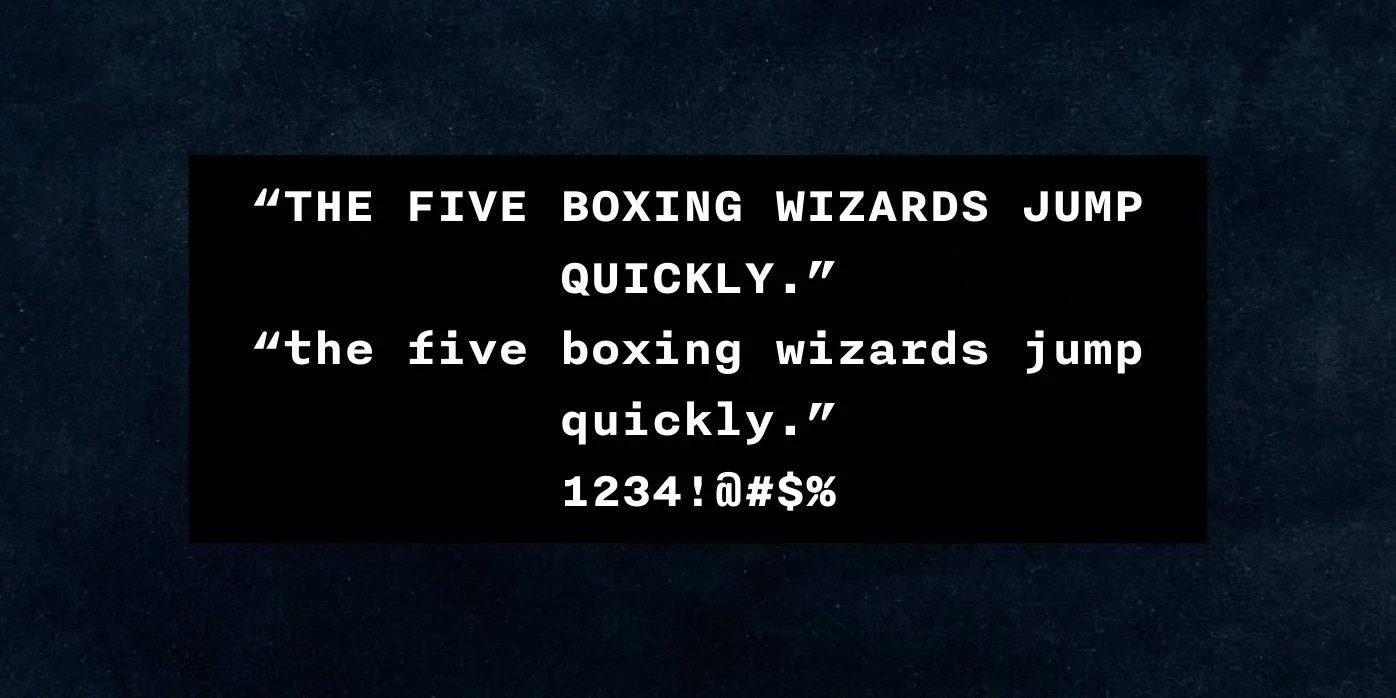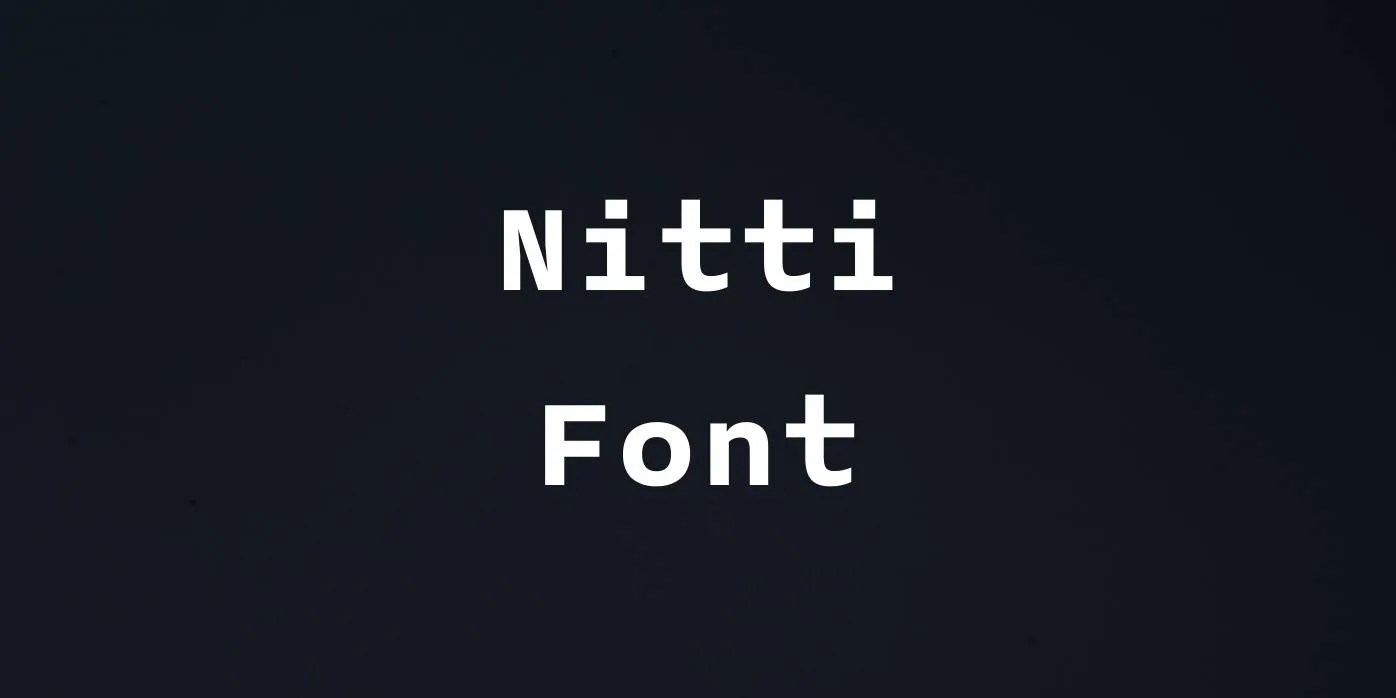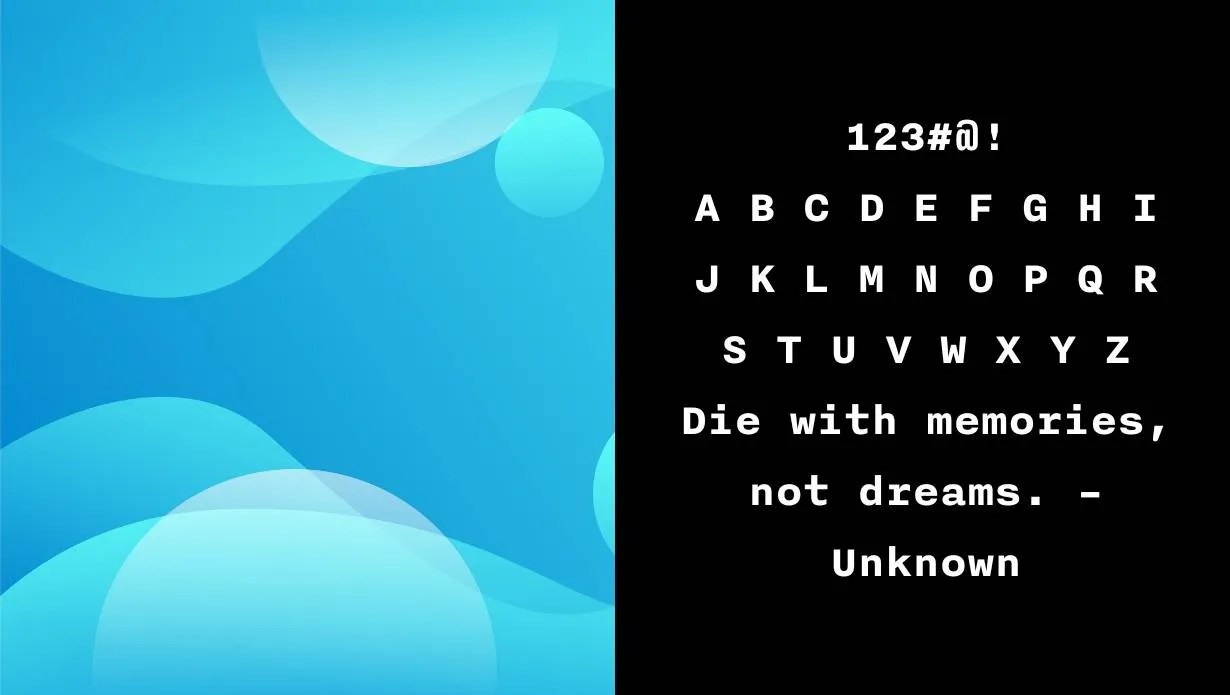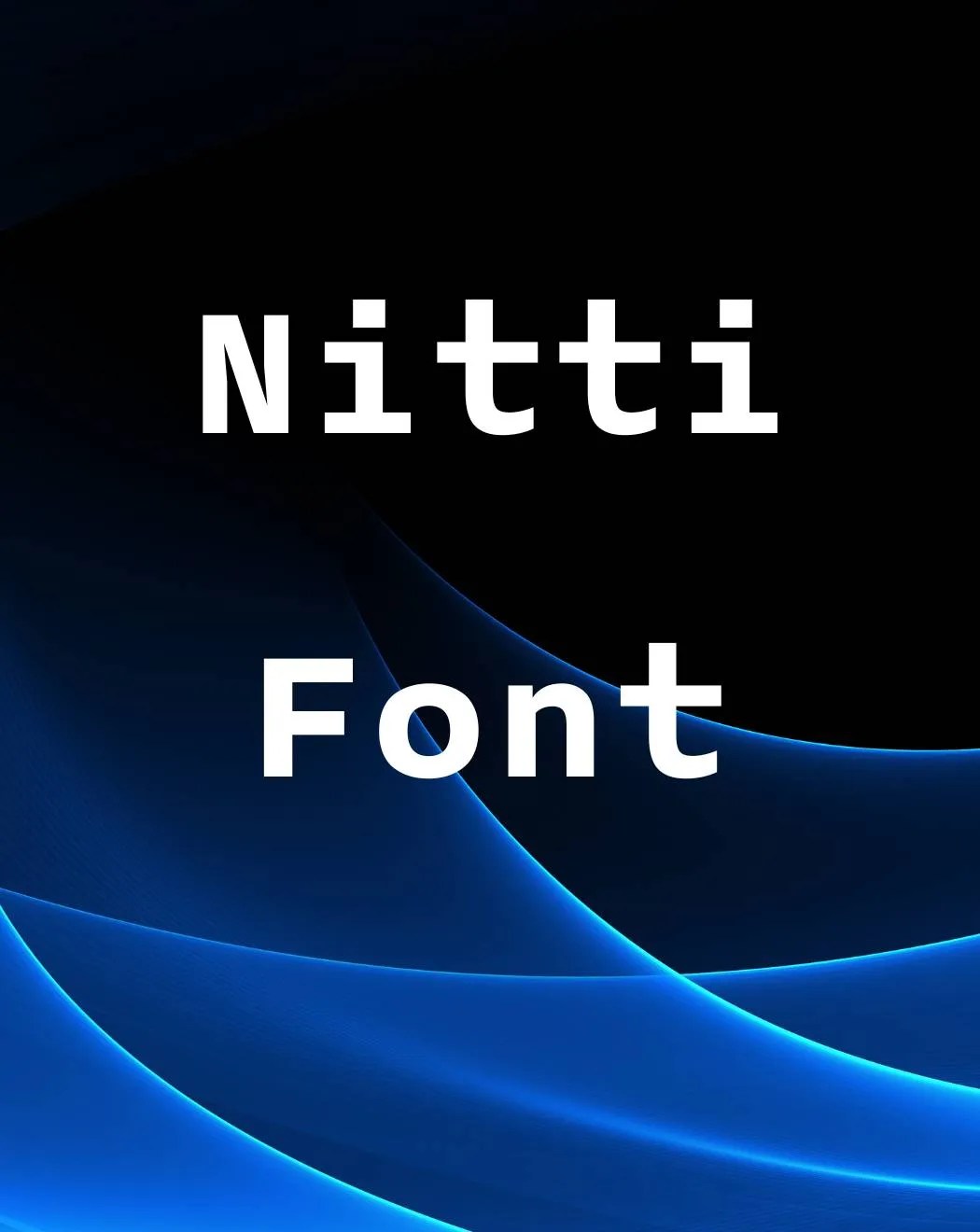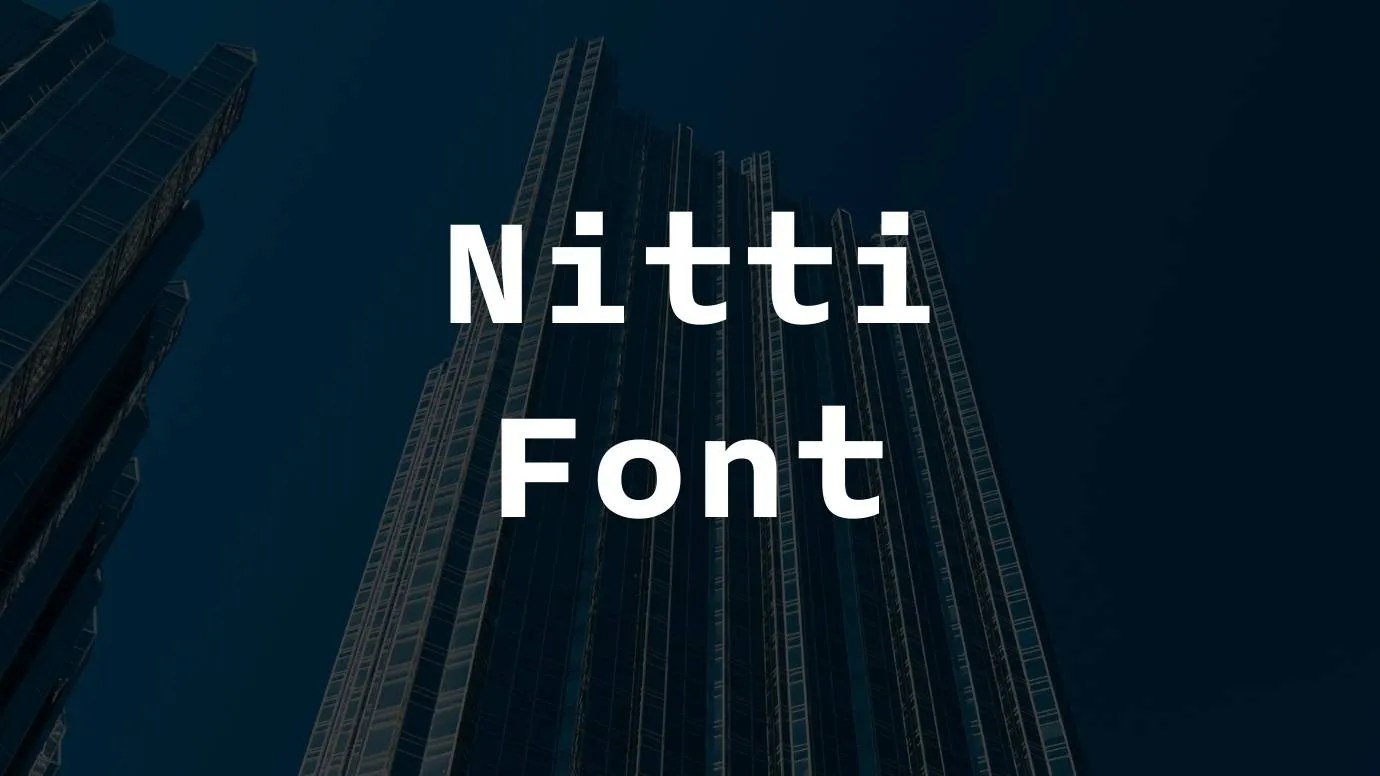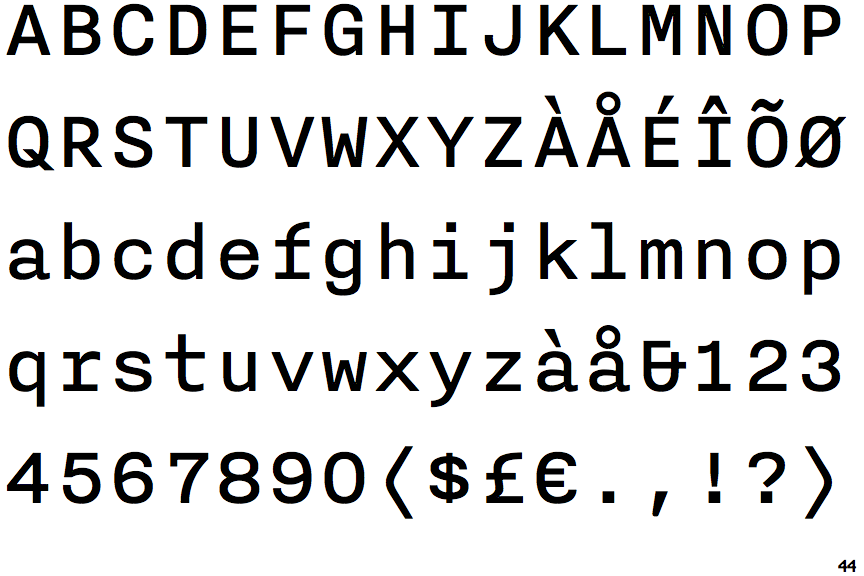
Nitti Font Free Download . A monospaced typeface with 10 styles, available from adobe fonts for sync and web use. Nitti font is a serif typeface that was designed in 2006 by francesco canovaro and andrea tartarelli. Fontstand allows trying nitti typeface for free or renting it for just a fraction of the regular price. The name nitti comes from the italian word for ‘black’,. A sans serif typeface with 5 styles, available from adobe fonts for sync and. The letters have a slightly rough. Explore nitti typewriter designed by pieter van rosmalen at adobe fonts. Download nitti font from free cdn or use it on your website as webfont. Explore nitti designed by pieter van rosmalen at adobe fonts.
Explore nitti designed by pieter van rosmalen at adobe fonts. The letters have a slightly rough. A monospaced typeface with 10 styles, available from adobe fonts for sync and web use. Explore nitti typewriter designed by pieter van rosmalen at adobe fonts. Fontstand allows trying nitti typeface for free or renting it for just a fraction of the regular price. Download nitti font from free cdn or use it on your website as webfont. A sans serif typeface with 5 styles, available from adobe fonts for sync and. The name nitti comes from the italian word for ‘black’,. Nitti font is a serif typeface that was designed in 2006 by francesco canovaro and andrea tartarelli.
Nitti Font Free Download A monospaced typeface with 10 styles, available from adobe fonts for sync and web use. Explore nitti typewriter designed by pieter van rosmalen at adobe fonts. Download nitti font from free cdn or use it on your website as webfont. A monospaced typeface with 10 styles, available from adobe fonts for sync and web use. Nitti font is a serif typeface that was designed in 2006 by francesco canovaro and andrea tartarelli. The letters have a slightly rough. A sans serif typeface with 5 styles, available from adobe fonts for sync and. Fontstand allows trying nitti typeface for free or renting it for just a fraction of the regular price. The name nitti comes from the italian word for ‘black’,. Explore nitti designed by pieter van rosmalen at adobe fonts.
Identifont Nitti Nitti Font Free Download The letters have a slightly rough. A sans serif typeface with 5 styles, available from adobe fonts for sync and. A monospaced typeface with 10 styles, available from adobe fonts for sync and web use. Nitti font is a serif typeface that was designed in 2006 by francesco canovaro and andrea tartarelli. Download nitti font from free cdn or use. Nitti Font Free Download.
Nitti Typewriter FontWiki Typografie.info Nitti Font Free Download Explore nitti designed by pieter van rosmalen at adobe fonts. A sans serif typeface with 5 styles, available from adobe fonts for sync and. Fontstand allows trying nitti typeface for free or renting it for just a fraction of the regular price. Download nitti font from free cdn or use it on your website as webfont. The letters have a. Nitti Font Free Download.
Nitti Grotesk Font Family » Free Download Vector Stock Image Icon Nitti Font Free Download Explore nitti typewriter designed by pieter van rosmalen at adobe fonts. A sans serif typeface with 5 styles, available from adobe fonts for sync and. Fontstand allows trying nitti typeface for free or renting it for just a fraction of the regular price. The name nitti comes from the italian word for ‘black’,. A monospaced typeface with 10 styles, available. Nitti Font Free Download.
Nitti Font Free Download The name nitti comes from the italian word for ‘black’,. A monospaced typeface with 10 styles, available from adobe fonts for sync and web use. Explore nitti typewriter designed by pieter van rosmalen at adobe fonts. Fontstand allows trying nitti typeface for free or renting it for just a fraction of the regular price. A sans serif typeface with 5. Nitti Font Free Download.
Nitti Font Family Symbol gatewaylasopa Nitti Font Free Download Explore nitti designed by pieter van rosmalen at adobe fonts. The letters have a slightly rough. A monospaced typeface with 10 styles, available from adobe fonts for sync and web use. Nitti font is a serif typeface that was designed in 2006 by francesco canovaro and andrea tartarelli. Explore nitti typewriter designed by pieter van rosmalen at adobe fonts. A. Nitti Font Free Download.
Nitti Font Free Download Nitti font is a serif typeface that was designed in 2006 by francesco canovaro and andrea tartarelli. The name nitti comes from the italian word for ‘black’,. Download nitti font from free cdn or use it on your website as webfont. Fontstand allows trying nitti typeface for free or renting it for just a fraction of the regular price. Explore. Nitti Font Free Download.
Bold Monday independent font foundry of high quality type Nitti Font Free Download Explore nitti typewriter designed by pieter van rosmalen at adobe fonts. Nitti font is a serif typeface that was designed in 2006 by francesco canovaro and andrea tartarelli. Fontstand allows trying nitti typeface for free or renting it for just a fraction of the regular price. Explore nitti designed by pieter van rosmalen at adobe fonts. Download nitti font from. Nitti Font Free Download.
Bold Monday independent font foundry of high quality type Nitti Font Free Download A monospaced typeface with 10 styles, available from adobe fonts for sync and web use. Explore nitti typewriter designed by pieter van rosmalen at adobe fonts. The name nitti comes from the italian word for ‘black’,. Download nitti font from free cdn or use it on your website as webfont. The letters have a slightly rough. Fontstand allows trying nitti. Nitti Font Free Download.
Bold Monday independent font foundry of high quality type Nitti Font Free Download A sans serif typeface with 5 styles, available from adobe fonts for sync and. A monospaced typeface with 10 styles, available from adobe fonts for sync and web use. Explore nitti designed by pieter van rosmalen at adobe fonts. The letters have a slightly rough. Explore nitti typewriter designed by pieter van rosmalen at adobe fonts. Fontstand allows trying nitti. Nitti Font Free Download.